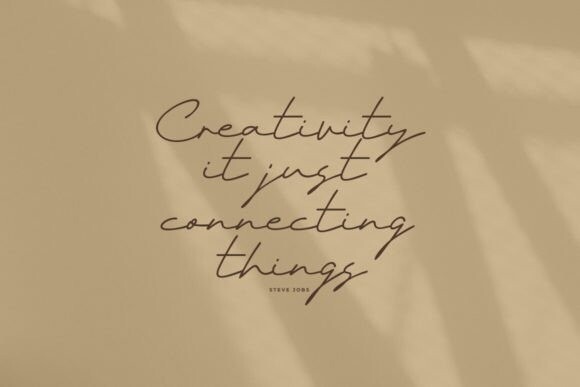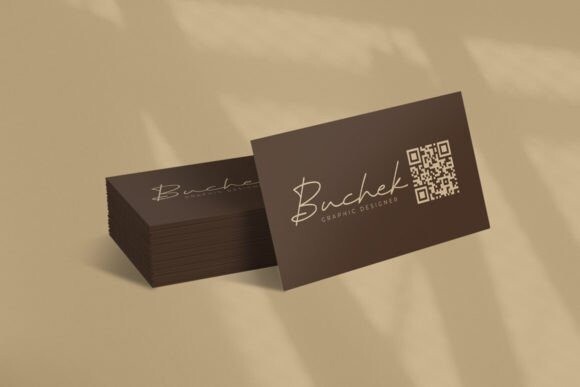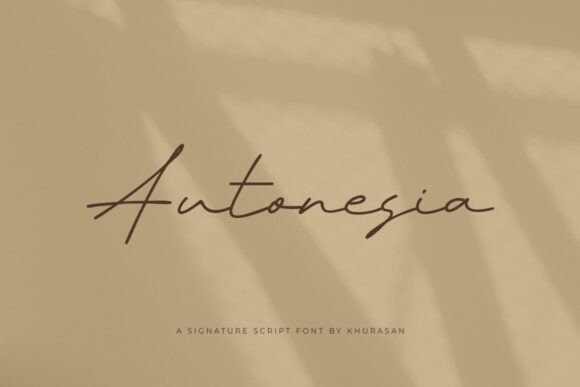
Autonesia Font
Autonesia Font is a beautiful signature script based on manual hand writing. This is a clean, stylish, modern, and elegant script font perfect for posters, logos, magazines, book covers, banners, and many more! Get this amazing font, and use it to create lovely designs. It can easily be matched to an incredibly large set of projects, so add it to your creative ideas and notice how it makes them stand out!